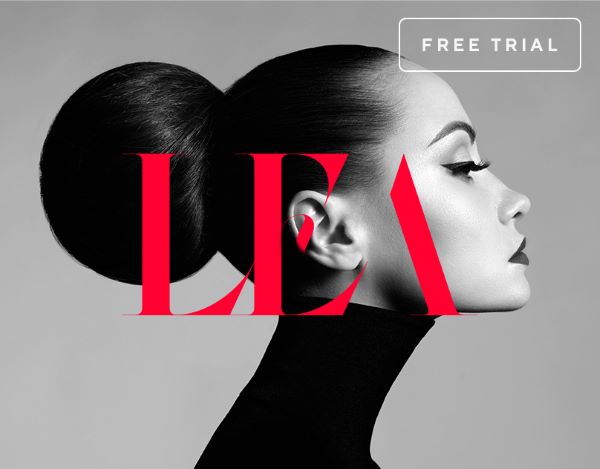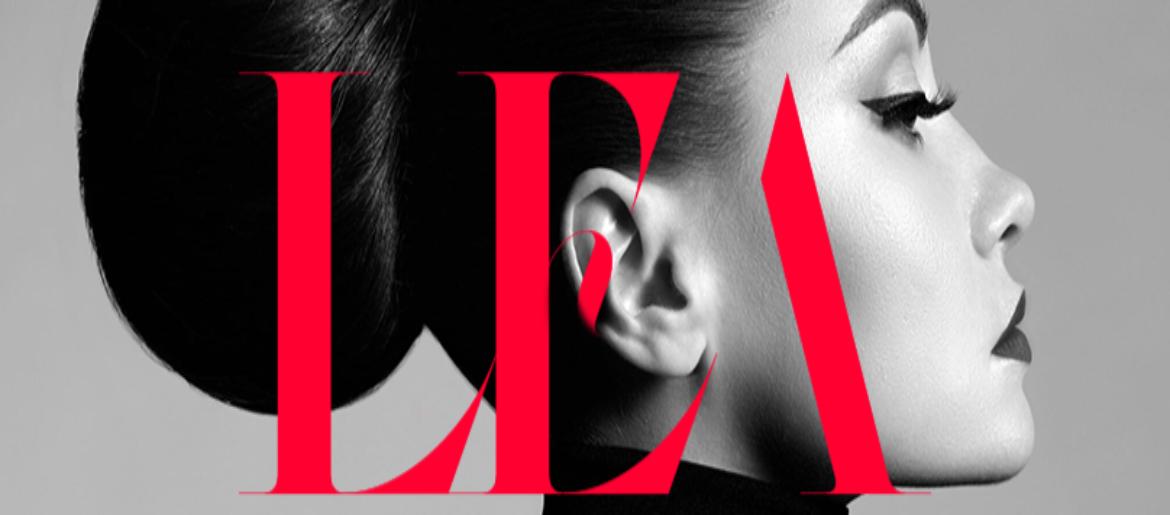
LEA Font
LEA by Hendrick Rolandez is a free editorial serif font with a refined, high-fashion sensibility that feels equally at home on a luxury magazine cover as it does anchoring a gallery poster or a brand identity. Its elegant proportions and sophisticated letterforms carry the understated confidence of classic European type design — minimal but never cold, structured but full of grace. LEA proves that a well-drawn serif needs nothing extra to make a lasting impression. Available free with a standard commercial license.